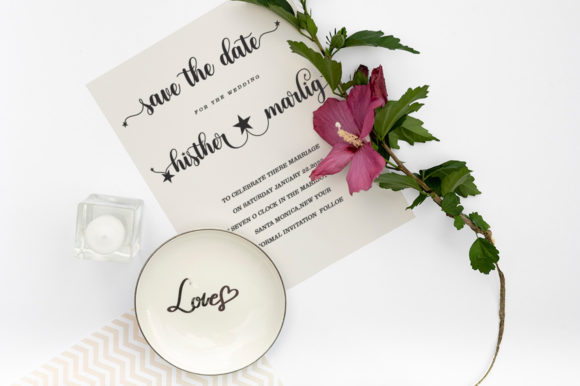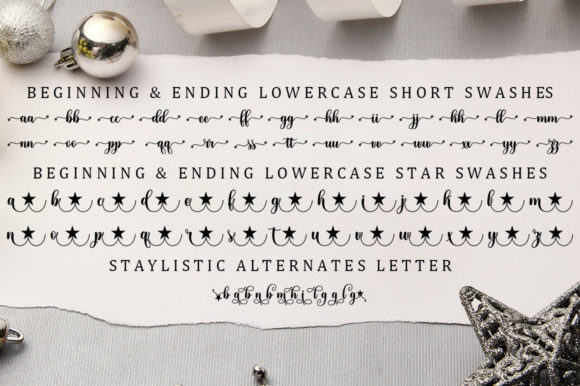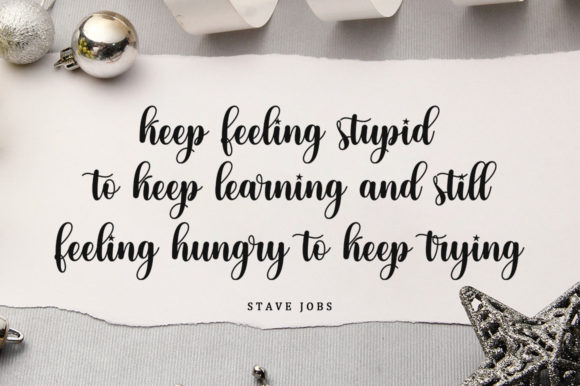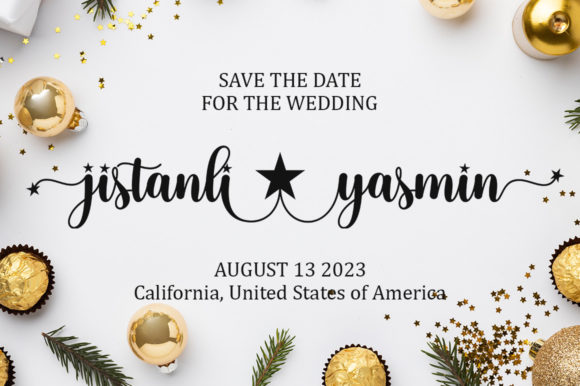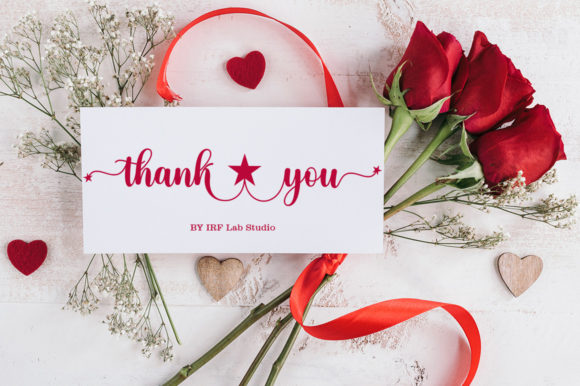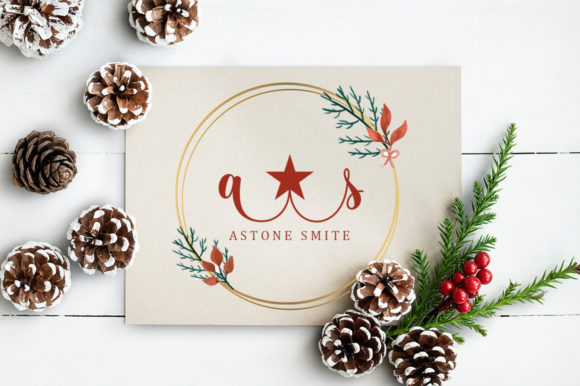
Harth Stylig Font
About Harth Stylig Font
Harth Stylig is a captivating and enchanting calligraphy typeface that exudes romance and elegance. Its unique charm lies in the way its characters gracefully sway along the baseline, creating a visually captivating rhythm. The combination of a casual and sophisticated touch makes Harth Stylig a versatile choice for a range of design projects.
This font’s PUA encoding offers convenient access to its extensive collection of glyphs and swashes, allowing you to effortlessly incorporate intricate flourishes and stylistic variations into your designs. Whether you’re working on branding projects, wedding invitations, or any creative endeavor that calls for a touch of refined elegance, Harth Stylig has you covered.
The fluid strokes and graceful curves of Harth Stylig lend an air of timeless beauty to any composition. It’s an ideal choice for conveying sentiments of love, romance, and sophistication, making it perfect for wedding stationery, anniversary invitations, and any design that aims to evoke a sense of elegance.
Harth Stylig’s distinct and captivating characters also make it a wonderful choice for headlines, logos, and branding materials. Its ability to stand out while maintaining a sense of casual charm ensures that your designs leave a lasting impression.
Overall, Harth Stylig is a font that embodies the art of calligraphy in a modern context. Its romantic and distinct qualities, coupled with its PUA encoding, make it a versatile and valuable addition to any designer’s toolkit.